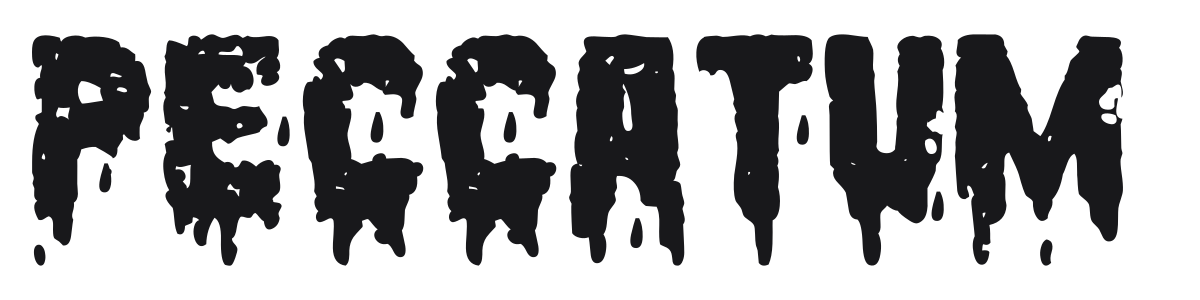
Peccatum
Peccatum is a dripping, blood-soaked display face from Woodcutter that looks like it was scrawled on a wall in something you don't want to identify. Every letter oozes downward with thick, visceral drips, placing it firmly in horror and Halloween territory. Built for headlines, event posters, and haunted house signage where the goal is to unsettle rather than inform.